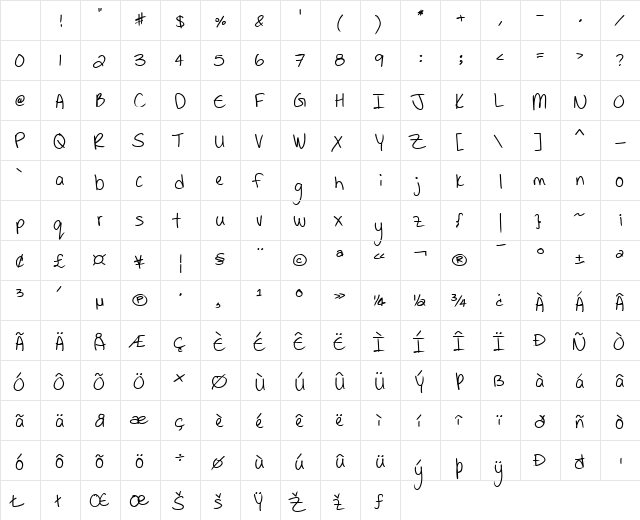
Complete Note to Selfie Regular glyph index. Displaying only characters natively supported by Note to Selfie Regular font.
Note to Selfie is a composed and adaptable typeface that performs quietly and consistently across a wide range of design contexts.
Pro Tip: Use Note to Selfie in both headline and body roles to test its range before committing to a single application.